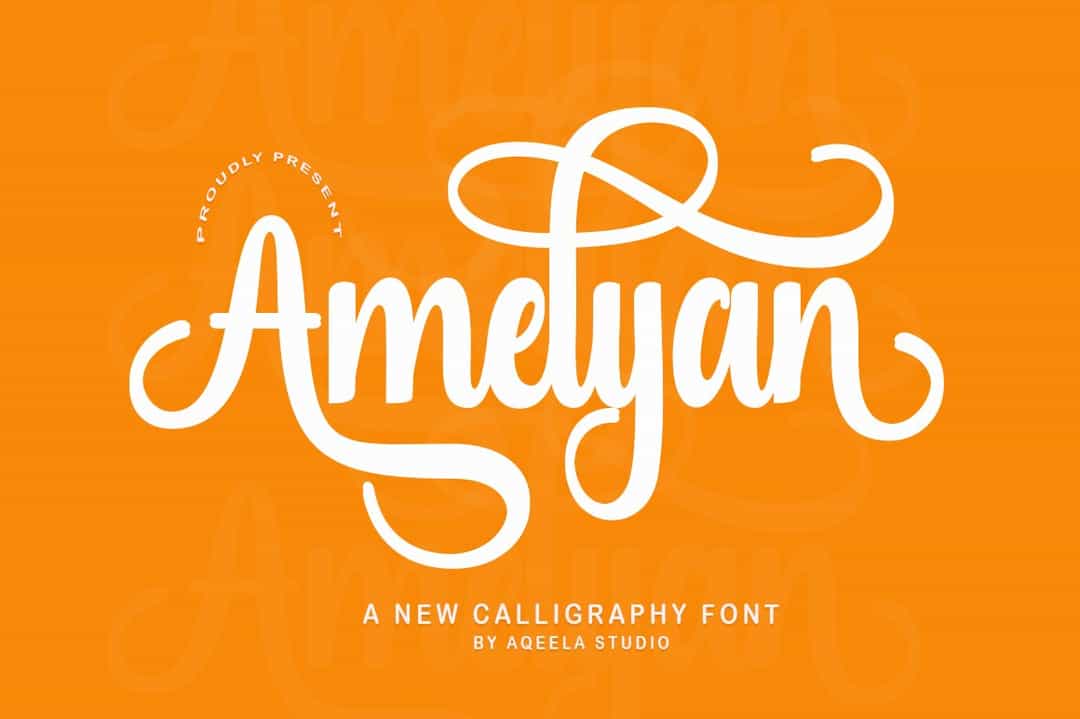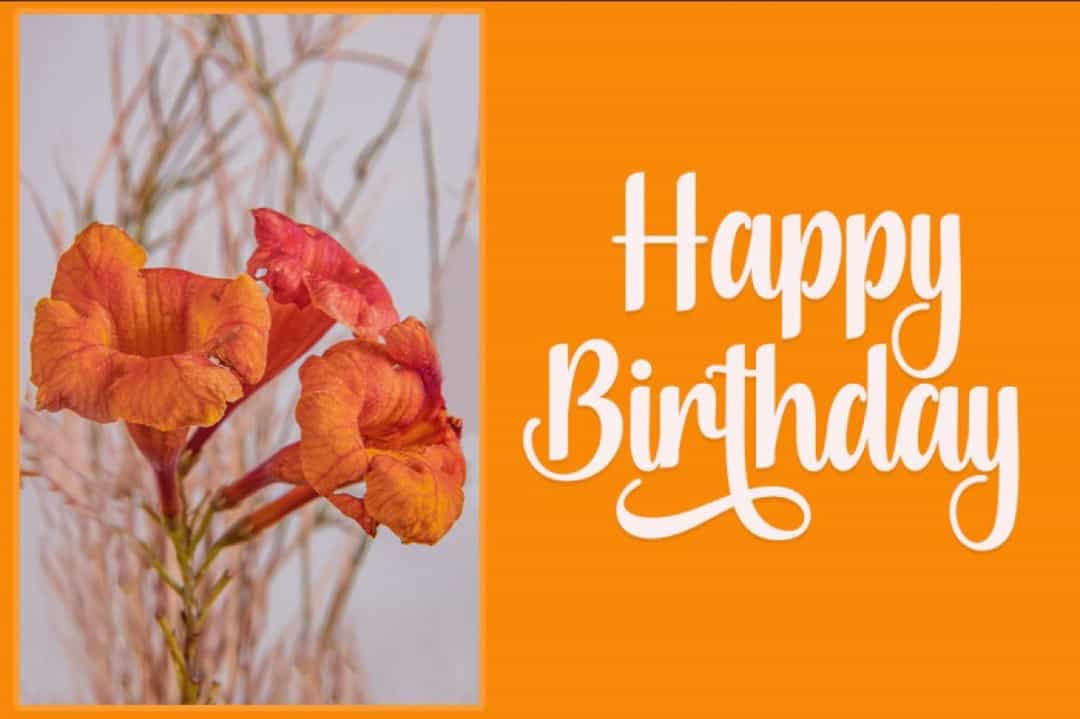
Discover Amelyan Font, part of the Calligraphy collection—a versatile and unique font perfect for adding a personal touch to your projects. Download it for free and enjoy crafting designs with style, from invitations to social media posts. This font is available exclusively for personal use, giving you the freedom to create without limits. Unlock your creativity with Amelyan Font today!